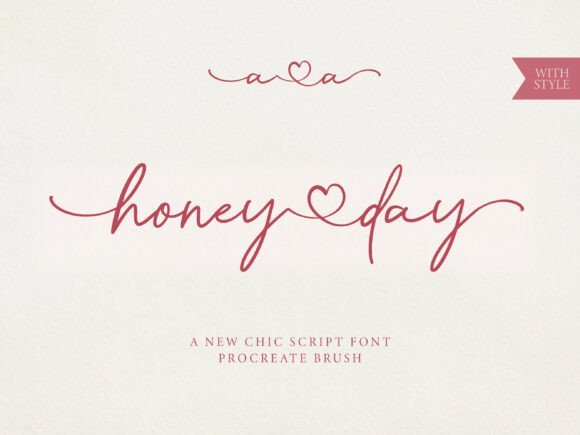
Discovering the Sweet Charm of Honey Day Font
As a designer, you’ve probably found yourself in the midst of a creative rush – the kind where you’re brainstorming ideas, flipping through inspiration boards, and experimenting with new typography. For me, it often starts with a single font that sparks a vision for a project. Recently, I stumbled upon the Honey Day Font, and its delicate, intimate script immediately captured my heart.
The Honey Day Font is a masterclass in elegant, flowing typography. Its continuous monoline structure and sweet heart-shaped connectors make it the perfect choice for projects that require a romantic, gentle touch. Whether you’re working on wedding details, branding for feminine apparel, or custom jewelry cards, this font delivers a message of delicate affection and modern chic.
For designers, the Honey Day Font is a valuable addition to any toolkit. Its unique style and versatility make it an ideal choice for a wide range of projects, from social media graphics to digital brush lettering. With its PUA-encoded script, you can easily access the font’s special features and create stunning designs that exude sweet charm and sophistication.
Honey Day Font Key Features
- Font Style: Script, Casual, Handwritten
- Font Size: 300-400 glyphs, including letters, numbers, and punctuation
- Unique Characteristics: Handwritten style with a mix of elegance and playfulness, making it perfect for creative projects
Honey Day Font Review
I recently had the chance to work with the Honey Day Font, and I’m here to give you the lowdown on what I think.
- The font’s friendly, approachable feel is perfect for creating a welcoming atmosphere in designs.
- The script-like style adds a touch of whimsy and personality to text, making it great for titles and headings.
- The font is highly legible, even at smaller sizes, making it suitable for body text as well.
- The font may be a bit too cursive for some projects, particularly those that require a more formal or serious tone.
- The font’s uniqueness can also be a drawback, as some users may find it too trendy or overused.
Overall, I think the Honey Day Font is a great addition to any designer’s toolkit. While it may not be suitable for every project, it’s perfect for those that require a friendly, approachable feel. With its high legibility and unique style, it’s definitely worth considering for your next design project.
The Honey Day font is perfect for:
- Birthday invitations and party decorations
- Food and dessert labels
Alternatives to Honey Day Font
Great Vibes is a beautiful, elegant script font that is perfect for adding a touch of sophistication to your designs. It is a great alternative to Honey Day Font for wedding invitations, event invitations, and other formal designs.
Similar to Honey Day Font, Great Vibes has a flowing, handwritten feel, but it is more refined and polished. It also has a wider range of weights and styles, making it more versatile.
Alex Brush is a calligraphic script font that is ideal for designs that require a sense of luxury and elegance. It is a great alternative to Honey Day Font for high-end branding, packaging, and advertising designs.
Unlike Honey Day Font, Alex Brush has a more dramatic and expressive feel, with a focus on bold strokes and fluid connections. It is perfect for designs that need to make a statement.
Carolyna Pro is a modern script font that is perfect for designs that require a sense of elegance and sophistication. It is a great alternative to Honey Day Font for fashion branding, beauty packaging, and luxury designs.
Similar to Honey Day Font, Carolyna Pro has a flowing, handwritten feel, but it is more modern and sleek. It also has a wide range of weights and styles, making it more versatile.
Lobster is a fun, casual script font that is perfect for designs that require a sense of playfulness and energy. It is a great alternative to Honey Day Font for social media graphics, advertising, and entertainment designs.
Q: What is the recommended font size and line height for using the Honey Day Font?
The Honey Day Font is designed to be used at font sizes ranging from 12pt to 24pt, with a recommended line height of 1.2 to 1.5 times the font size. This will ensure optimal readability and visual appeal in your designs.